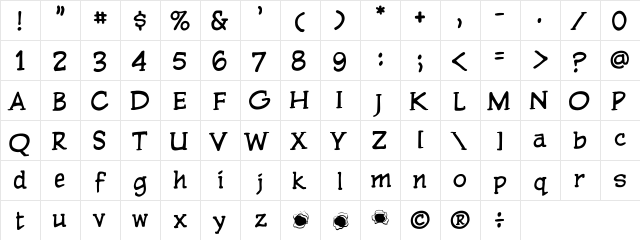
CCPulpFiction Medium
Design Context for CCPulpFiction Typeface
CCPulpFiction is a composed and adaptable typeface that performs quietly and consistently across a wide range of design contexts.